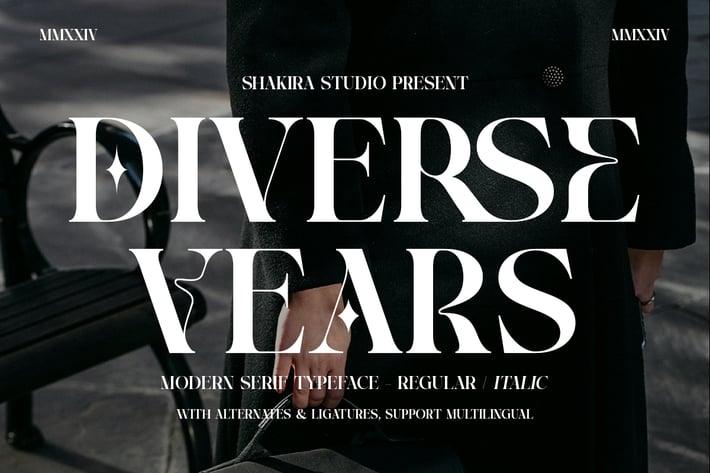
Diverse Vears - Modern Serif Font
Diverse Vears is a modern serif typeface available in regular and italic styles. Combining luxury and elegance, this font offers stylish alternates and ligatures to elevate your designs. Perfect for branding, editorial layouts, logos, and more, Diverse Vears adds a sophisticated touch to any project. Let your creativity shine with this versatile and timeless typeface.
- Regular & Italic
- Opentype features ( ligature, alternate )